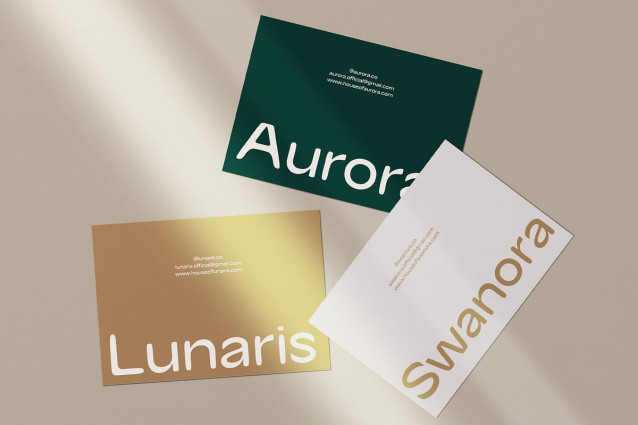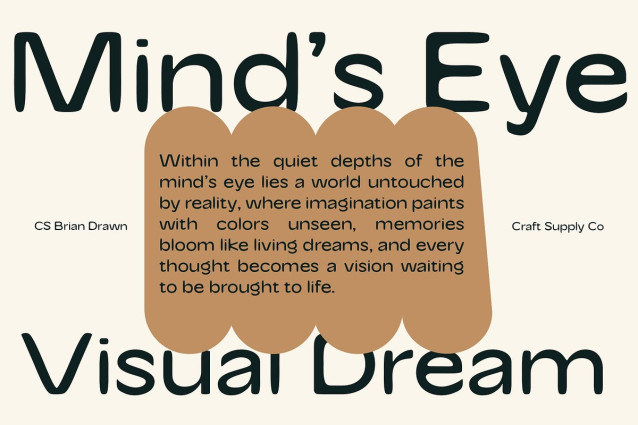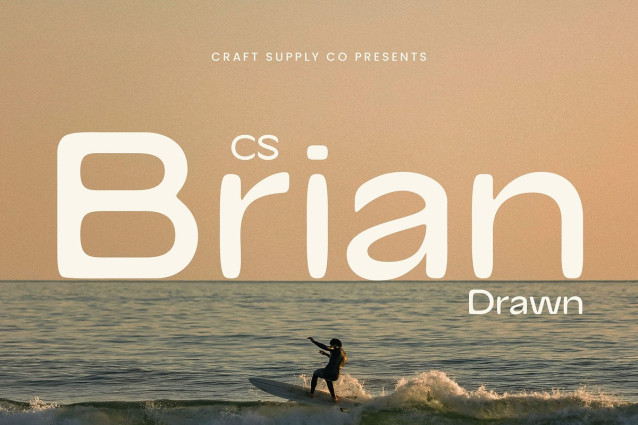
CS Brian Drawn Font
CS Brian Drawn Font is a modern sans-serif font defined by its minimalist structure and clear geometric forms. Designed with simplicity and elegance in mind, it offers a sleek and professional appearance that works seamlessly across digital and print mediums.
Drawn Texture for a Handmade Touch What sets this contemporary sans serif font apart is its distinctive drawn effect. This hand-rendered texture subtly softens the clean sans-serif base, introducing an organic, human quality. The drawn finish adds depth and warmth, transforming the font into a creative tool that feels both refined and approachable. This touch of imperfection enhances the font’s character and emotional resonance.
Versatile for Editorial and Creative Branding This modern sans serif font excels in editorial layouts, branding projects, website headers, posters, and packaging. Its unique blend of modern and handmade qualities makes it suitable for everything from contemporary magazines to creative studios and design-forward businesses. It communicates both professionalism and creativity, allowing your message to feel polished yet personal.
Warm Minimalism for Standout Visuals Striking a balance between functional design and artistic flair, this drawn font offers a fresh approach to modern typography. Its warm minimalism gives it wide appeal—ideal for designers who want to maintain a clean aesthetic while introducing a layer of expressive texture.